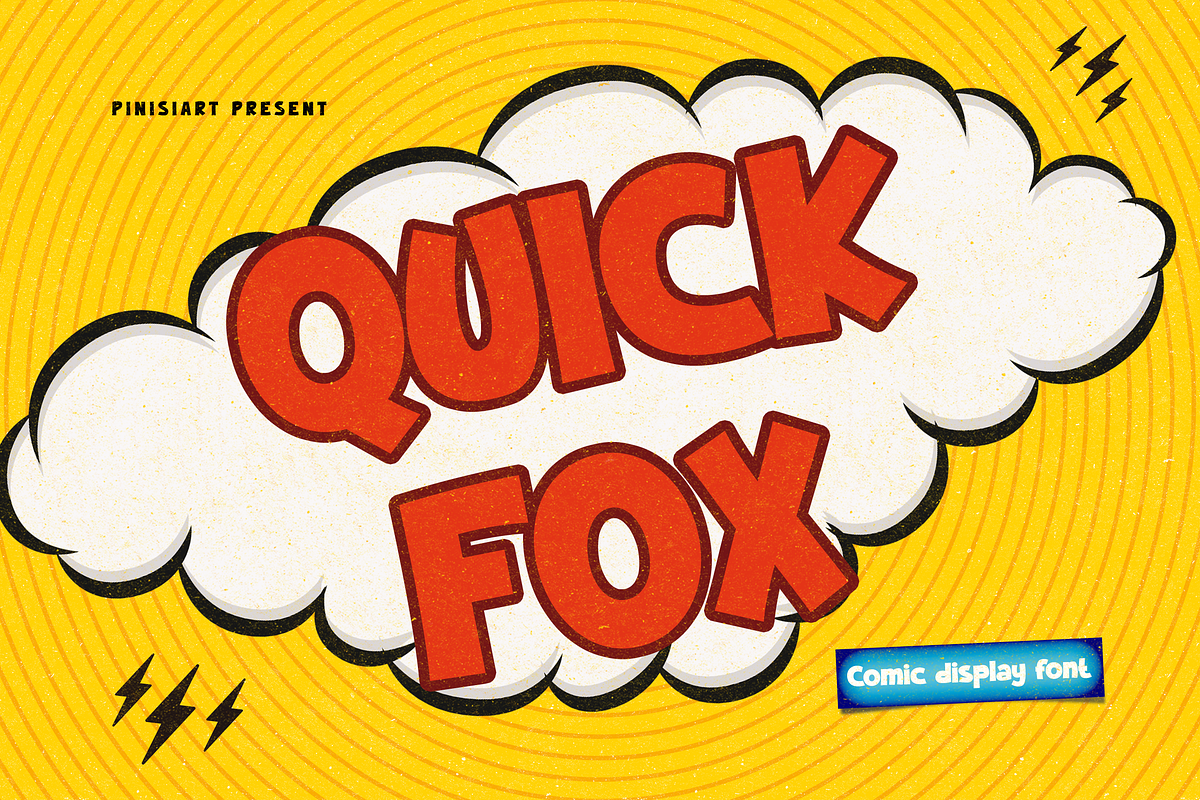
Quick Fox – Comic Display Font Free Download
Quick Fox – Comic Display Font Free Download is a fun, energetic typeface crafted with bold strokes and playful curves, perfect for adding personality to your creative projects. Inspired by classic comic book lettering, this font is ideal for children's books, cartoon titles, game graphics, posters, and any design that needs a cheerful, animated touch.
Its clear readability and expressive style make it a great choice for both headlines and short bursts of text, bringing excitement and movement to your layouts. Whether you're working on a comic strip or a colorful brand identity, Quick Fox adds that extra bounce and charm.